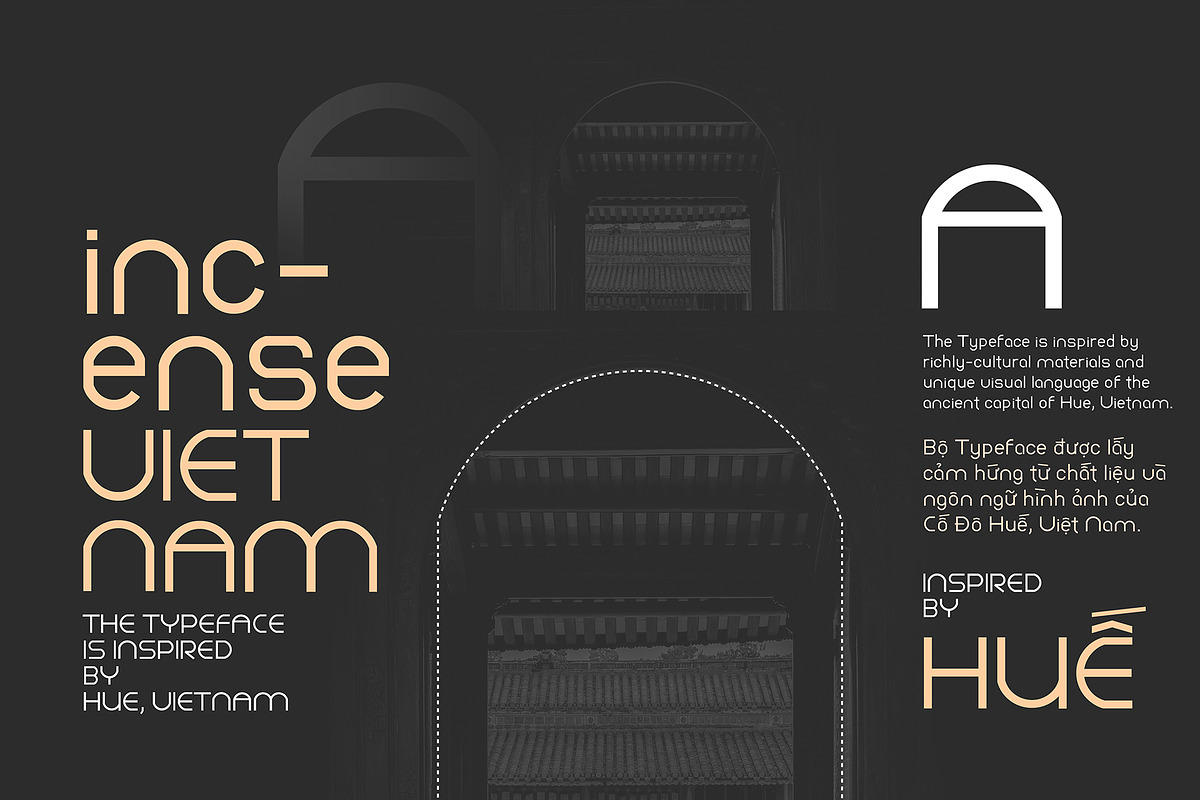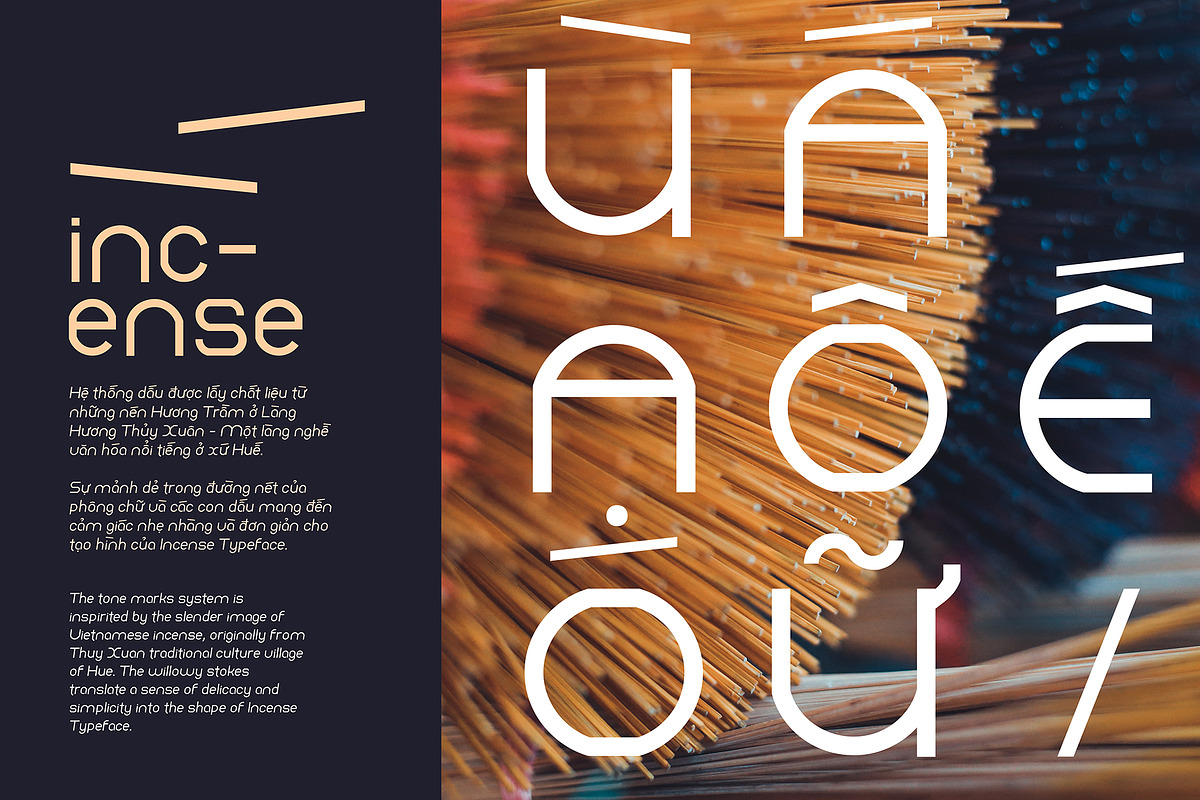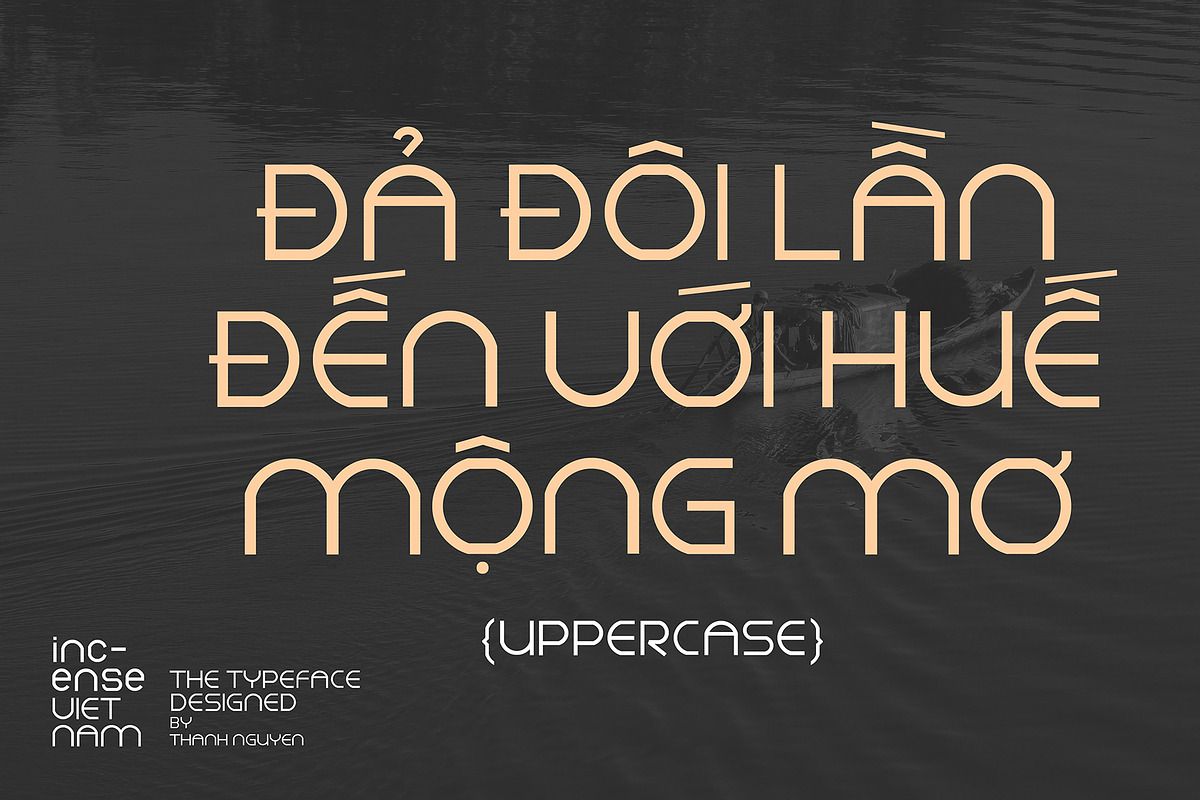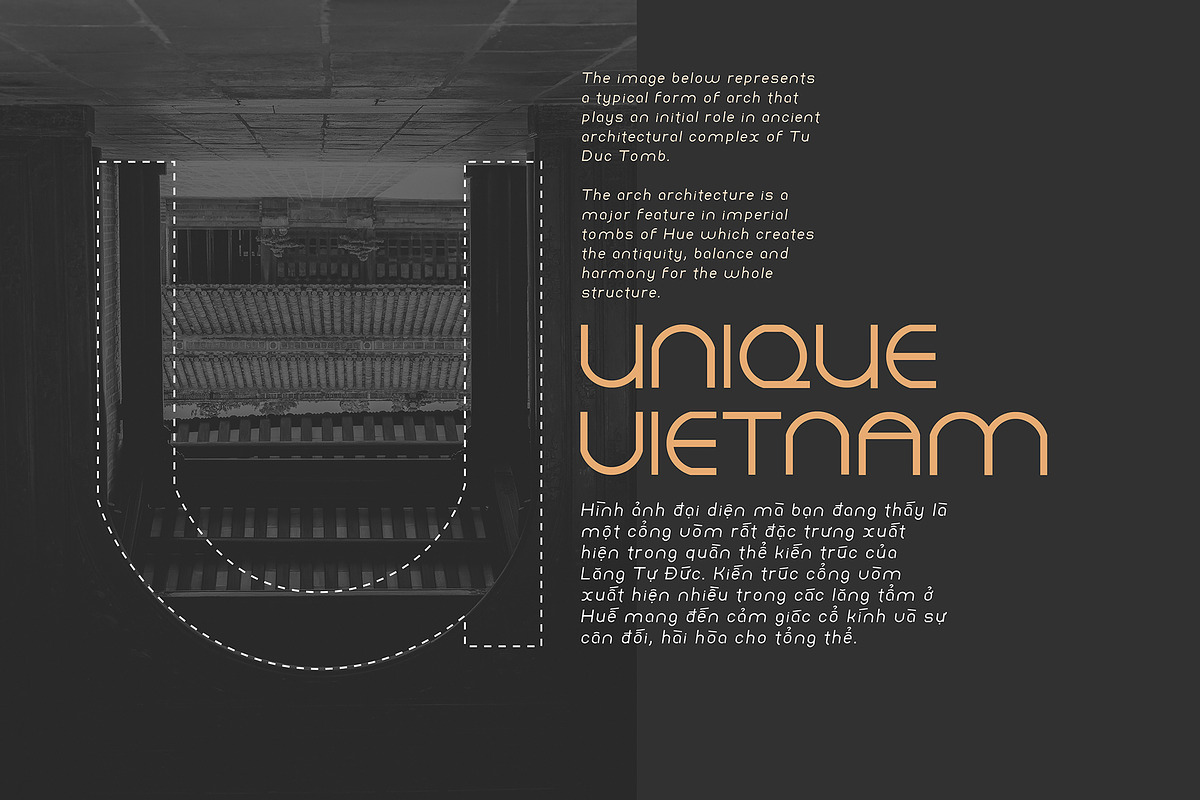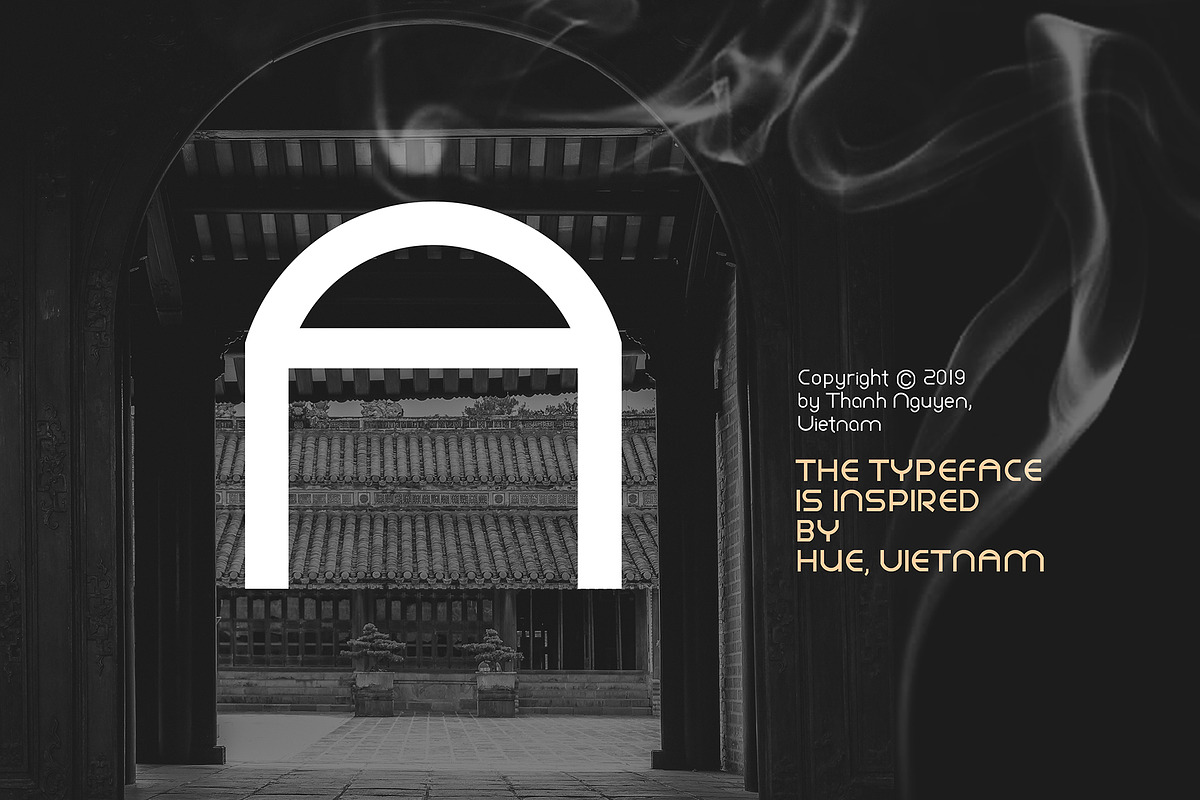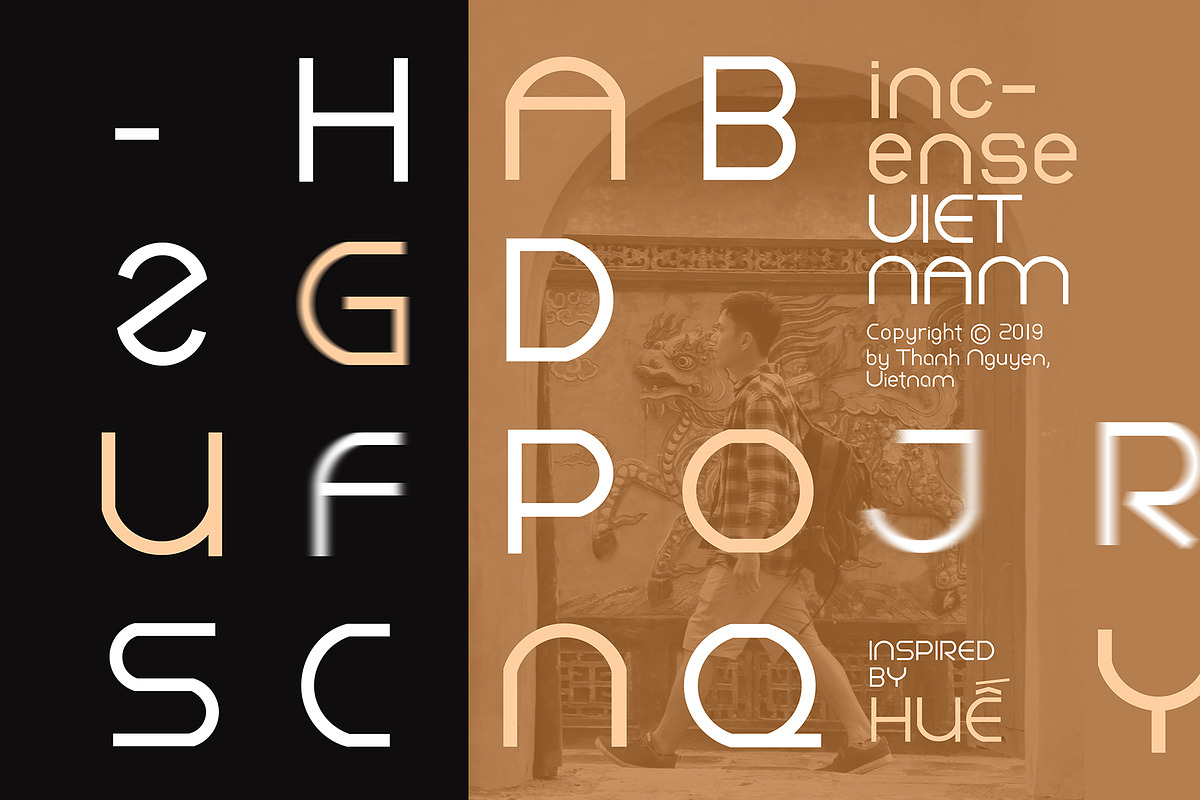
Incense Vietnam Typeface
The Typeface is inspired by richly-cultural materials and unique visual language of the ancient capital of Hue, Vietnam.
The image below represents a typical form of arch that plays an initial role in ancient architectural complex of Tu Duc Tomb. The arch architecture is a major feature in imperial tombs of Hue which creates the antiquity, balance and harmony for the whole structure.
The tone marks system is inspirited by the slender image of Vietnamese incense, originally from Thuy Xuan traditional culture village of Hue. The willowy stokes translate a sense of delicacy and simplicity into the shape of Incense Typeface.
The typeface’s name - “Incense Vietnam” accumulates the author’s desire to endorse original products of Vietnam which contributes to the cultural introduction to the global market.